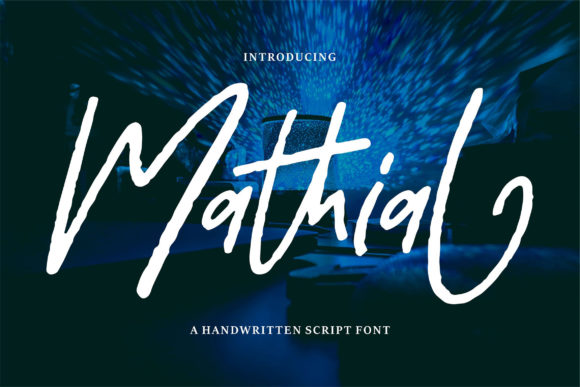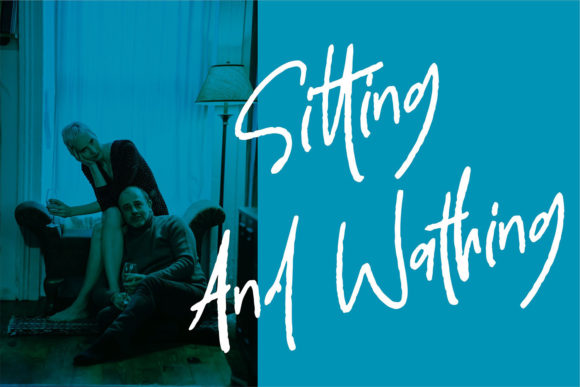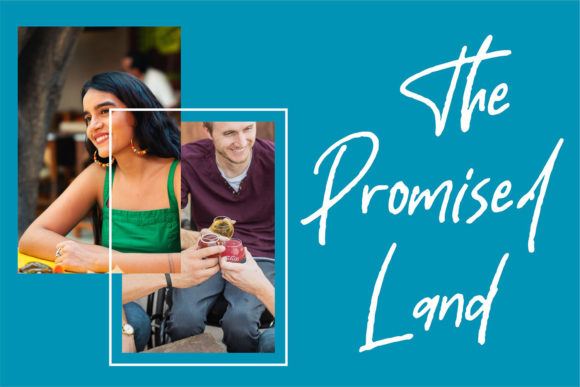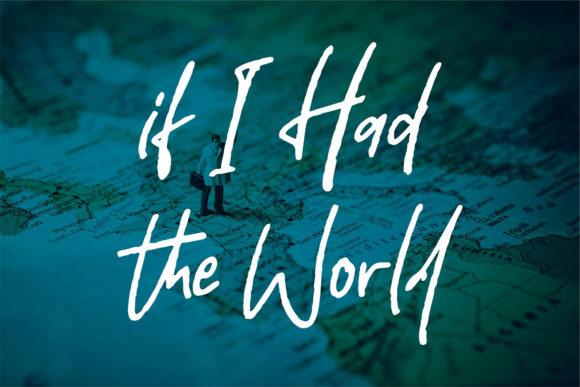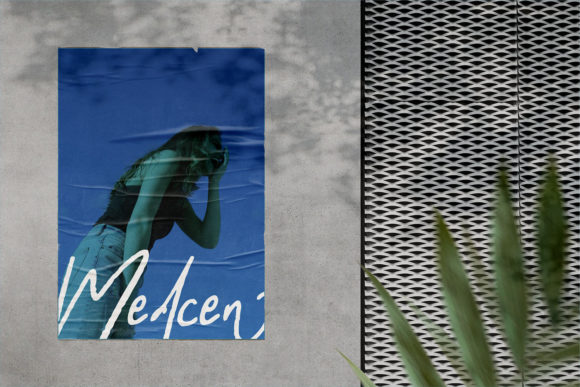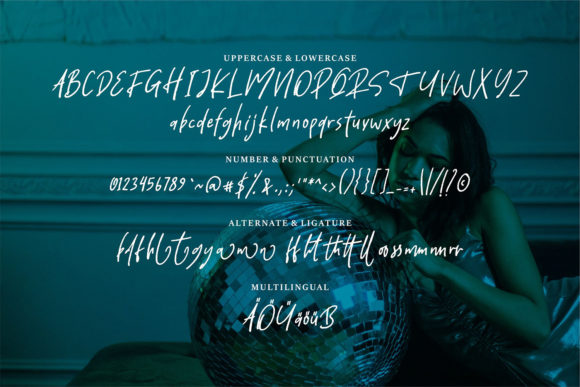
Mathial Font
About Mathial Font
Mathial is a laid-back, asymmetrical and brushed handwritten font. It features uniquely shaped letters, and as a result, it will easily match a wide range of creations that require a distinct touch.